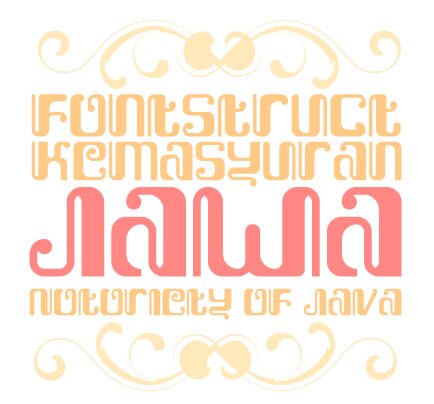
Kemasyuran Jawa, designed by Adien Gunarta of FontStruct, is a free Thai-style display font with a strikingly continuous, rounded build. Tall verticals rise above compact loops and deep curves, producing a dense skyline across the narrow, tightly spaced lettering. Small hooked details and abrupt changes in stroke height keep the forms lively.
Designers creating material for Southeast Asian cultural events and youth-oriented entertainment can use its decorative profile across posters, festival graphics, music packaging, and game branding, where its looping structure can echo ornamental patterns. Festival posters are its most convincing setting.